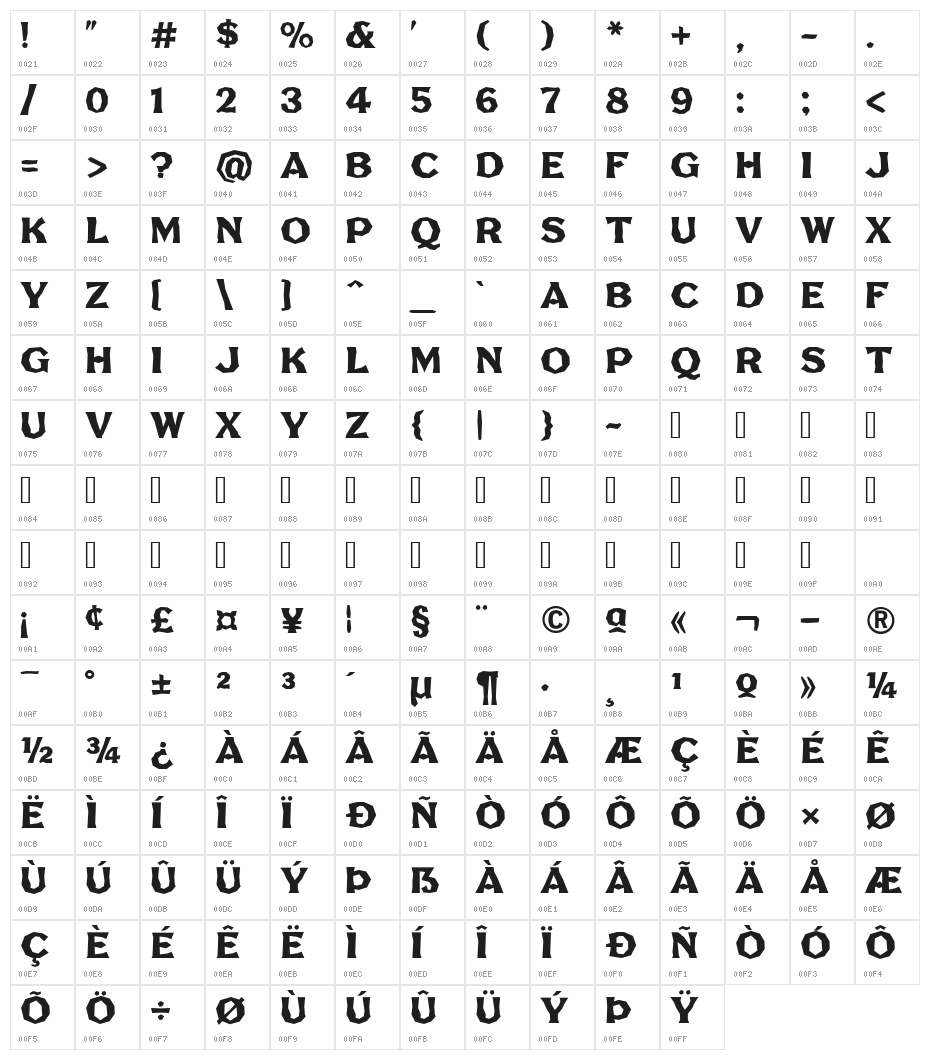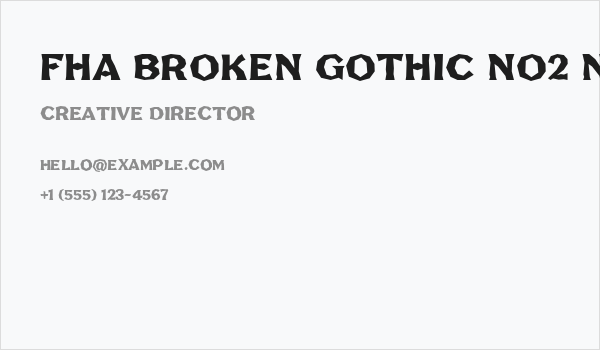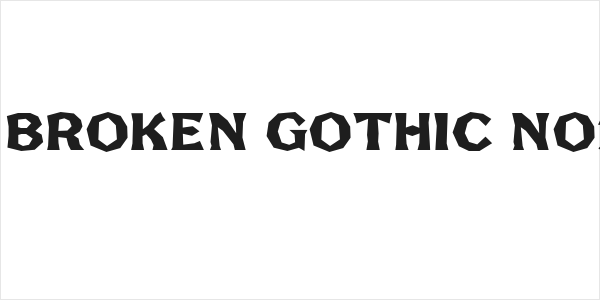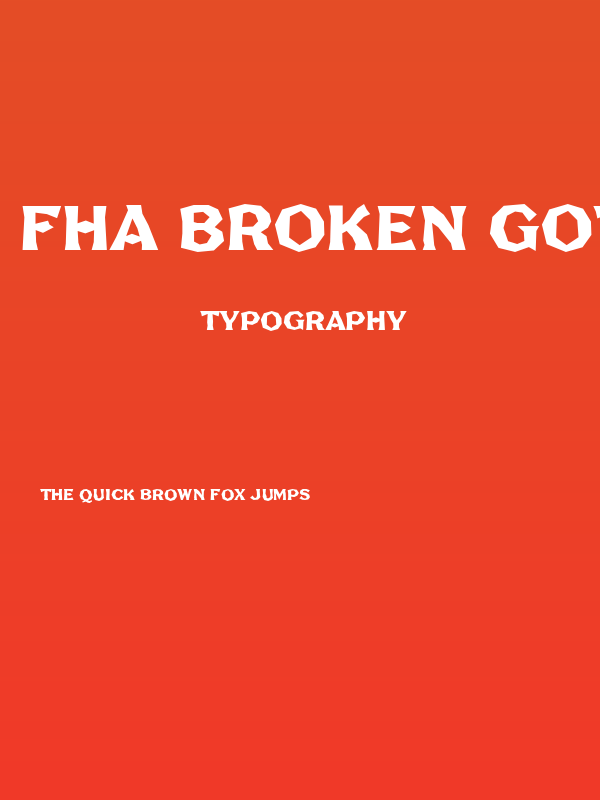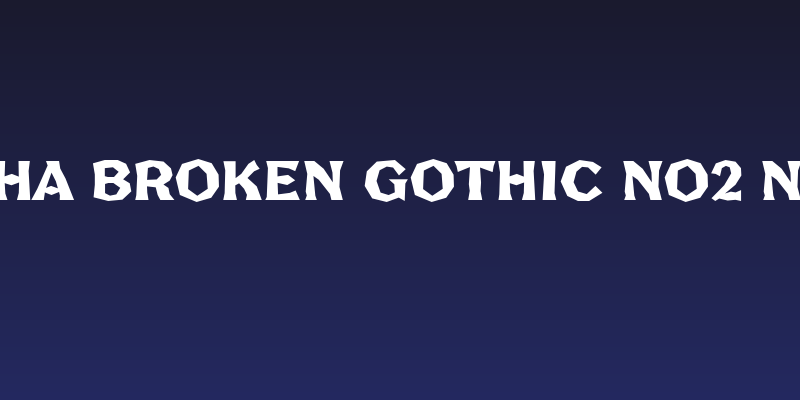
FHA Broken Gothic No2 NC Font
FHA Broken Gothic No2 NC Description
This font features a bold and angular design, reminiscent of traditional Gothic styles with a modern twist. The characters are sharply defined with a distinct geometric structure, creating a striking visual impact. The uppercase and lowercase letters maintain a consistent style, with the uppercase being particularly prominent. Numbers and special characters are equally bold, ensuring uniformity across all text elements. The font's unique aesthetic makes it suitable for projects that require a strong, authoritative presence.